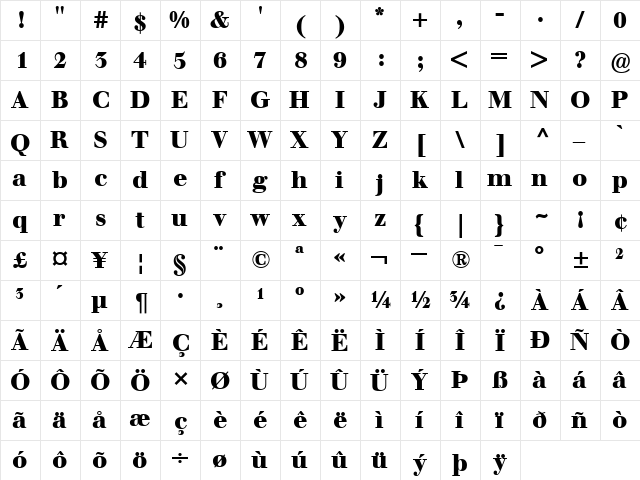
Design Context for BertholdWalbaumBold-Book Typeface
BertholdWalbaumBold-Book is a composed and adaptable typeface that performs quietly and consistently across a wide range of design contexts. Its bold stroke weight gives it real presence on the page.